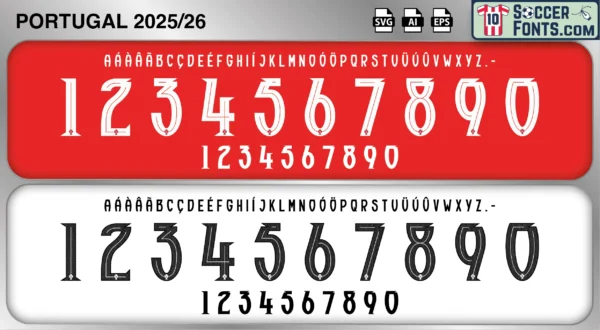
Portugal 2025-26 Font
The Portugal 2025-26 font is an editable soccer jersey lettering design in vector format inspired by the Portugal kit style used during the 2025-26 football seasons. This football font artwork is prepared for football shirt recreations, custom jersey projects, football kit mockups and sports graphic design workflows.
The 2025-26 period represents Portugal’s campaign toward qualification for the 2026 FIFA World Cup, a new chapter for one of Europe’s most consistent national teams. Under Roberto Martínez, Portugal continues to build on the foundations established by previous generations while relying on a squad filled with talent from top European clubs. Players such as Bruno Fernandes, Bernardo Silva, Rúben Dias, Vitinha, Rafael Leão, João Neves, Diogo Costa and other emerging stars form the core of a team expected to compete among the strongest nations in international football. Portugal enters the qualification cycle carrying the expectations that come with decades of success at major tournaments and a reputation for producing world-class footballers.
The Portugal 2025-26 font became associated with the road to the expanded 2026 FIFA World Cup and a period of transition between generations. While experienced leaders continue to play important roles, younger players are increasingly shaping the future of the national team. Portuguese football remains admired for its technical quality, player development system and ability to consistently produce elite talent capable of succeeding at the highest level. Portugal shirts from the 2025-26 era are expected to become popular among football shirt collectors and supporters because of their connection to the World Cup qualification campaign and the continuing evolution of one of Europe’s most respected football nations. The Portugal 2025-26 font reflects a modern era of ambition, renewal and continued pursuit of international success.